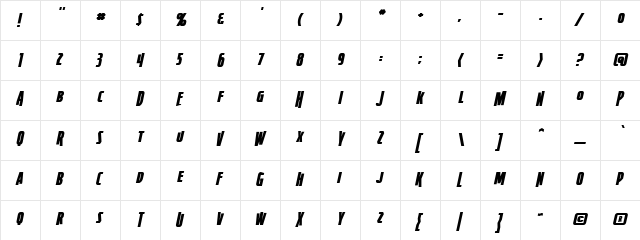
Firepower BB Italic
Design Context for Firepower BB Typeface
Firepower BB brings high-energy athletic personality to the page — its confident, muscular forms are built for impact. The slanted form adds forward momentum and visual energy.
Built for sports team identities, athletic apparel, event posters, and high-energy promotional material.
Pro Tip: Firepower BB thrives on contrast — try it large, bold, and tight against a clean background for maximum visual impact.